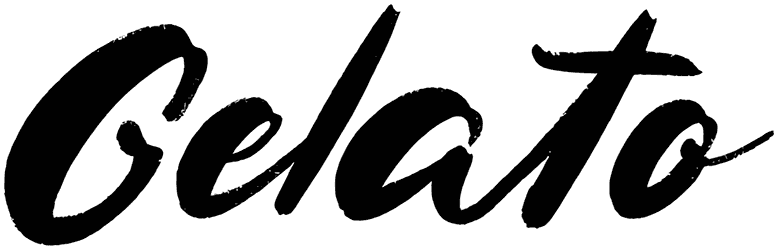
Gelato Font
With the benefit of this script font, bring the joy of showing natural handwriting designs to anything. Style your typography method and push a sweet, friendly setup with the help of this Gelato font.
This brush font featuring complete characters releases a dynamic and lovable sense among all viewers. Now, look into our ever-growing library will provide you with a wide range of fantastic products that could level up your design quality in minutes!